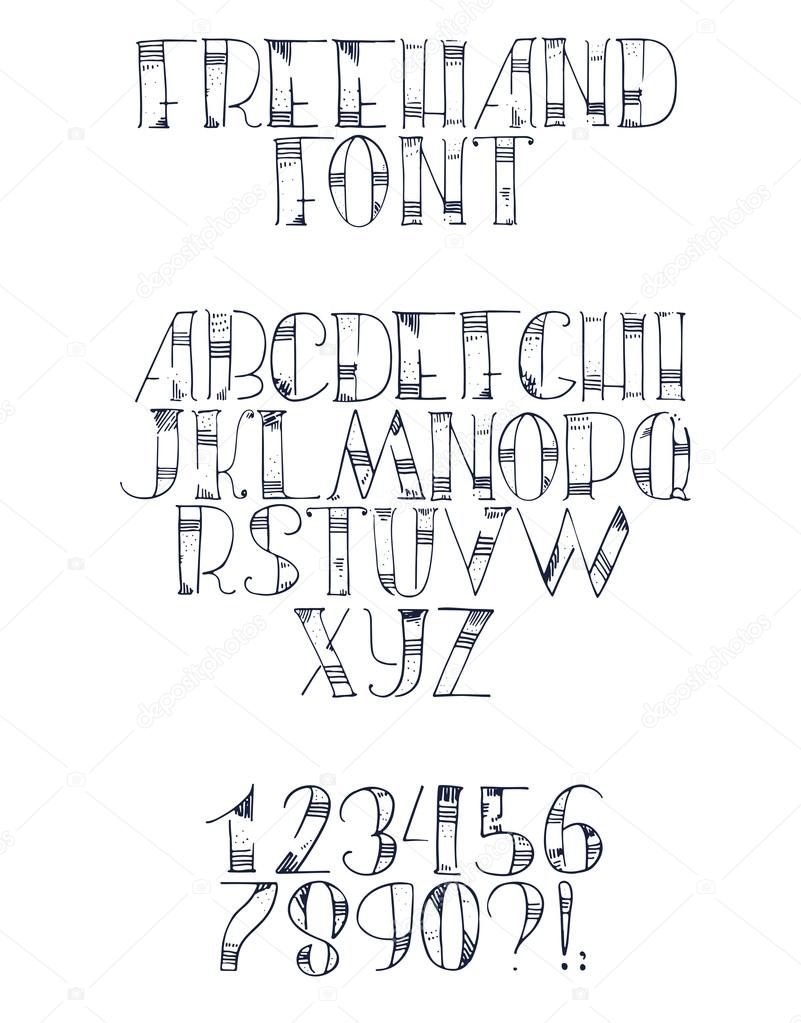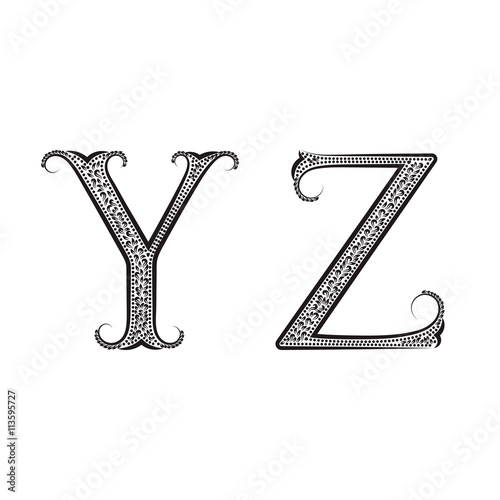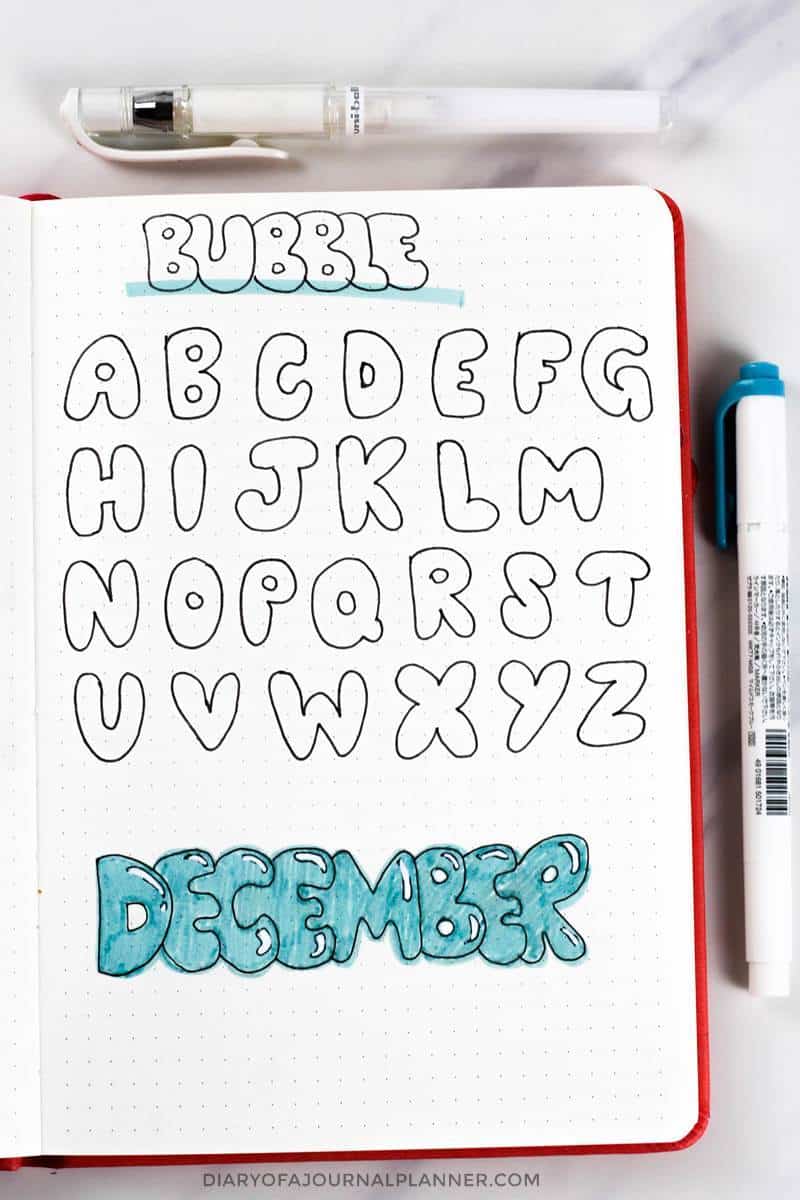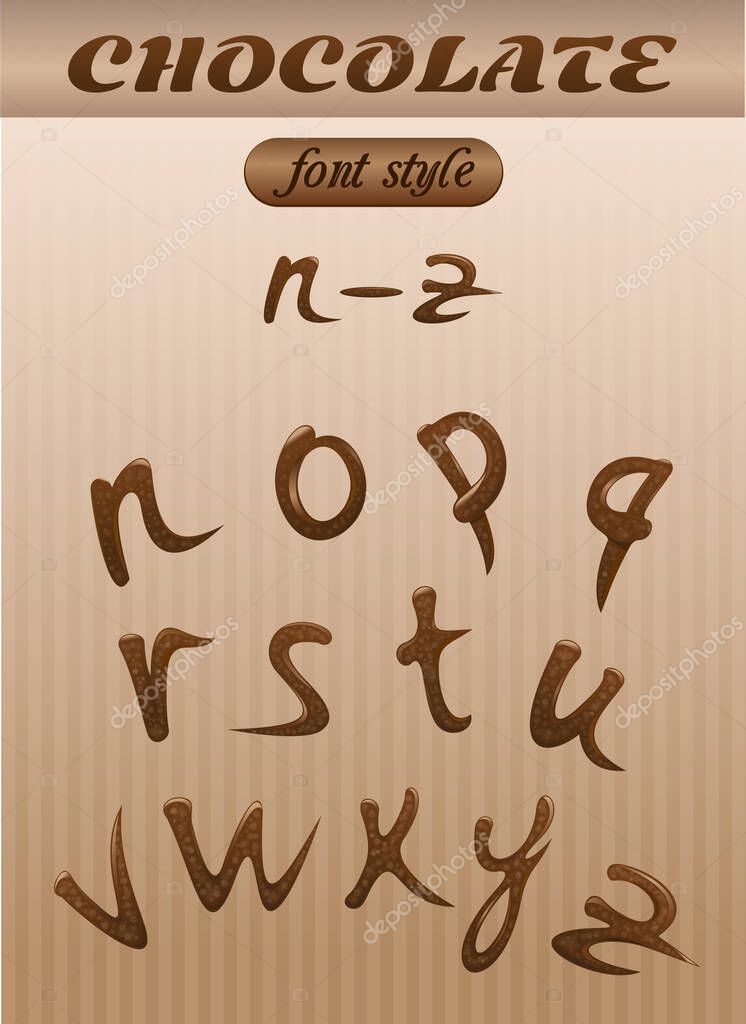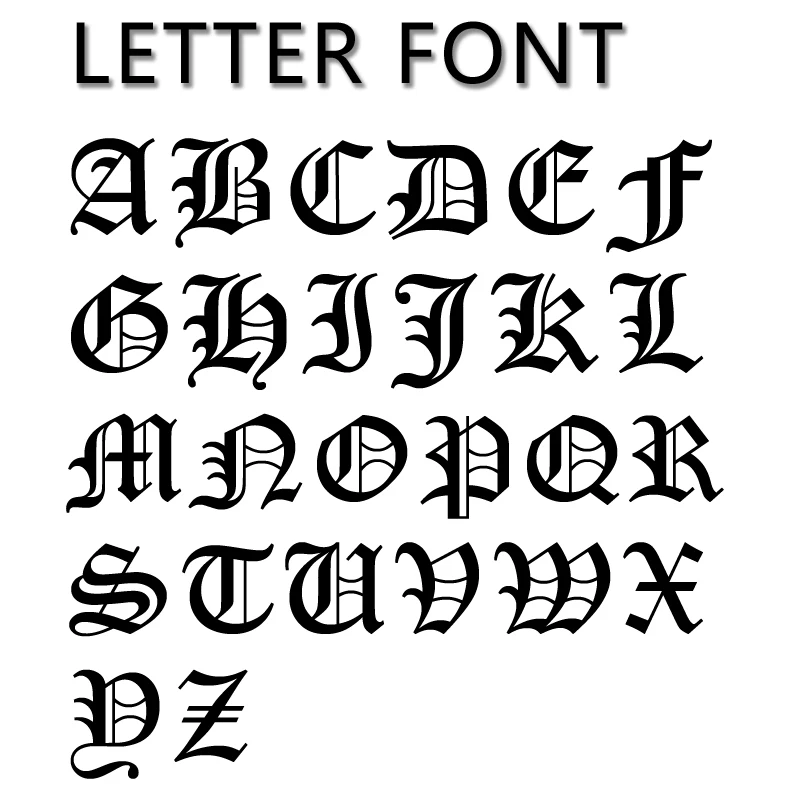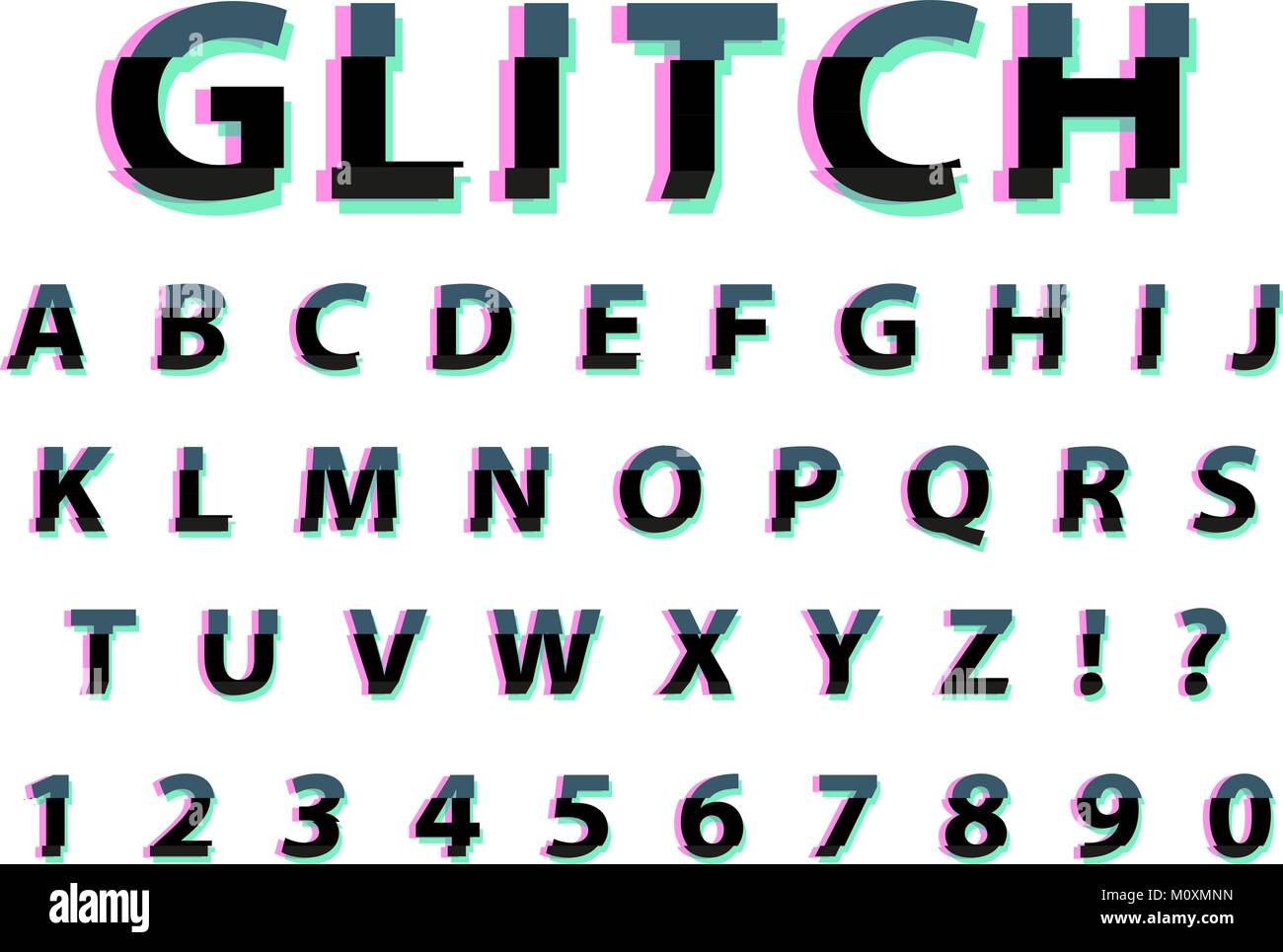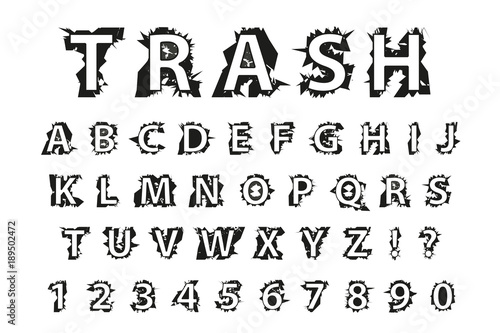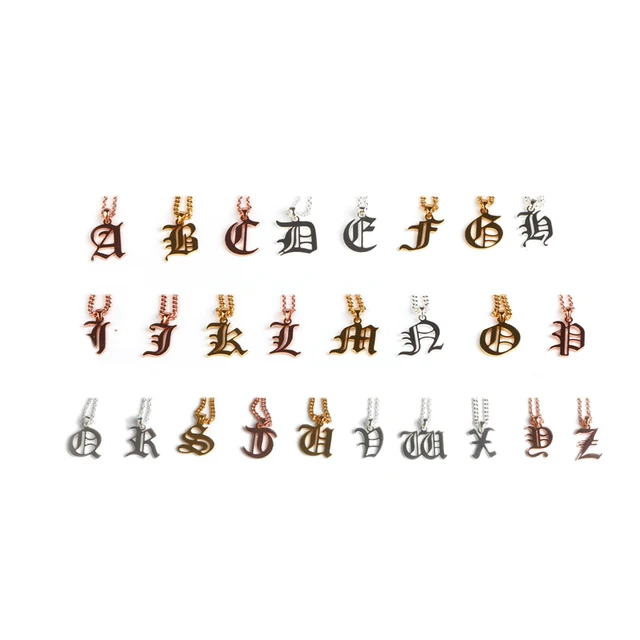
Tattoo Fonts Alphabet Lettering Alphabet Fonts Tattoo Lettering Fonts Handwriting Alphabet Monogram Letters Fancy Letters Lettering Alphabet Lettering Design.
Lettering font styles a to z. Create free fonts style in ππ±πΆπ©π¦π°π₯ A to Z Alphabet text fonts for Instagram Facebook Twitter and many more. Gothic Letters A-Z Karens Whimsy. As an author she has written and illustrated best-selling books on hand lettering and journaling.
Hand lettering is an art form that takes practice and discipline and can mimic calligraphy or other styles. Included are beautiful alphabets in English Italian and Unical styles in capital and lower case letters. This worksheet includes examplars and practice letters for uppercase letters A through Z.
On dark - select category. Here are six sets of Gothic Letters from A to Z. Cursive handwriting is easy if we know how to write how to move pen to make link between letters in continues way.
Includes one examplar in black font and two tracing practice letters in gray plus space to write the. Calligraphy is an ancient writing technique using flat edged pens to create artistic lettering using thick and thin lines depending on the direction of the stroke. A handwriting style is a carefully designed efficient way of forming letters and numbers.
Cursive handwriting styles a to z. The Kelsey style is a modern and quirky font. The height of calligraphy was reached in the middle age where monks developed the narrow writing style called gothic allowing more words to fit on a single line as paper was expensive at the time.
Hand-lettered is the style where you draw each letter individually as opposed to writing them as in cursive or calligraphy. Use this text font generator to style your Facebook nick name with cool fancy letters and symbols. Saved by Jodi Edwards.
The full a-z alphabets and numbers for each of the fancy symbol fonts above are too big to copy here but Ill paste a couple here to show you. Brush Celtic Chinese Copperplate Medievil Modern Old English Renaissance Runic Stencil Uncial and Victorian Calligraphy. The ABCs of Hand Lettering The ABCs of Journaling and Hand Lettering A to Z.
Thats where I hope this comes in handy.